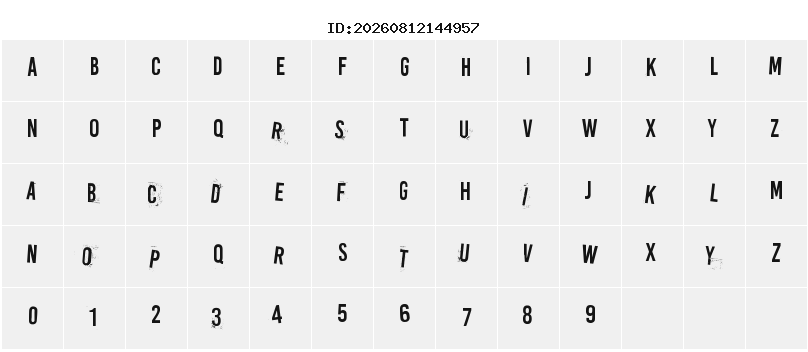
Rip-off Preview
About Rip-off.ttf
Rip-off.ttf is a modern, elegant sans-serif font designed for ultimate readability and visual harmony. Perfect for branding, headlines, web design, and print materials.